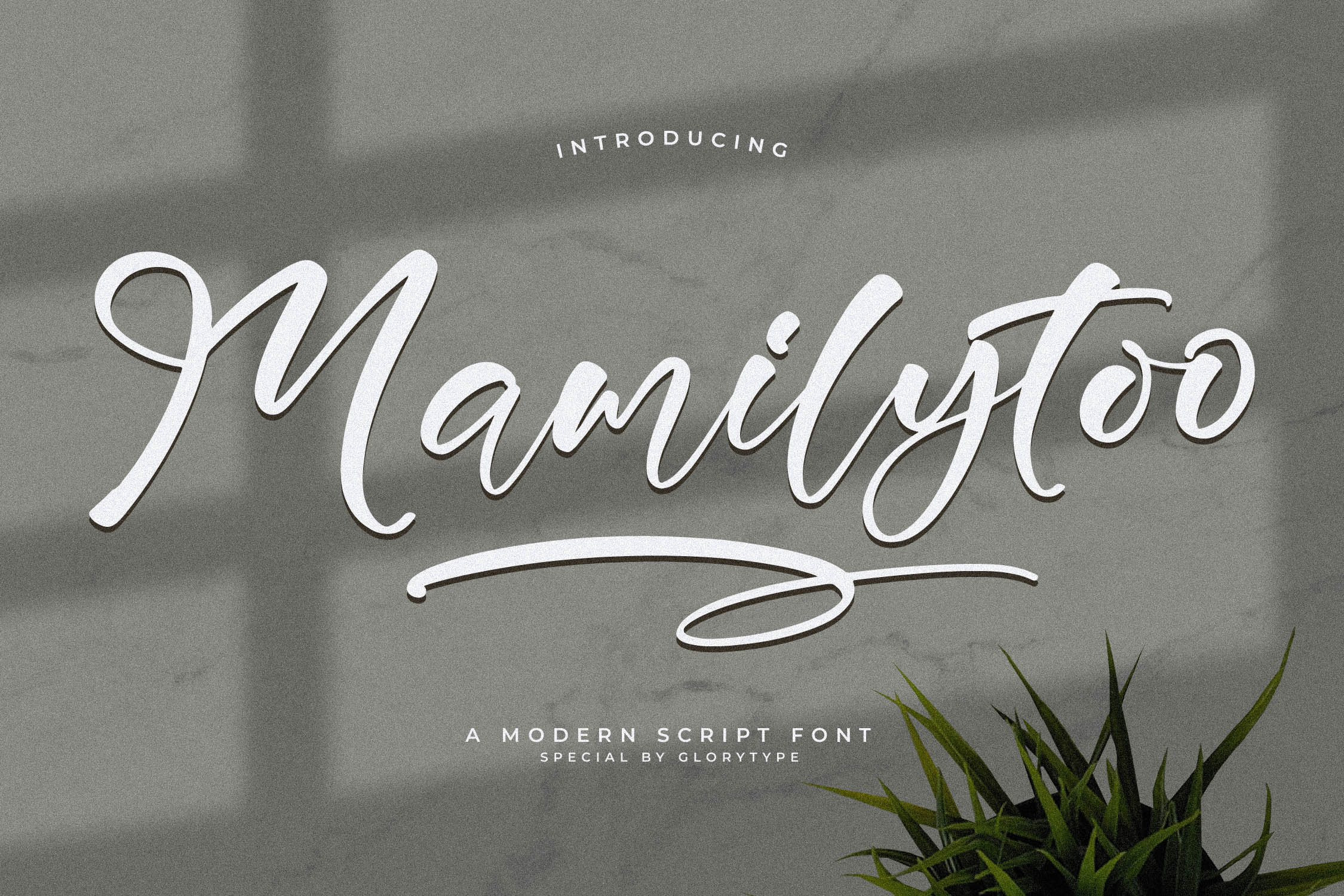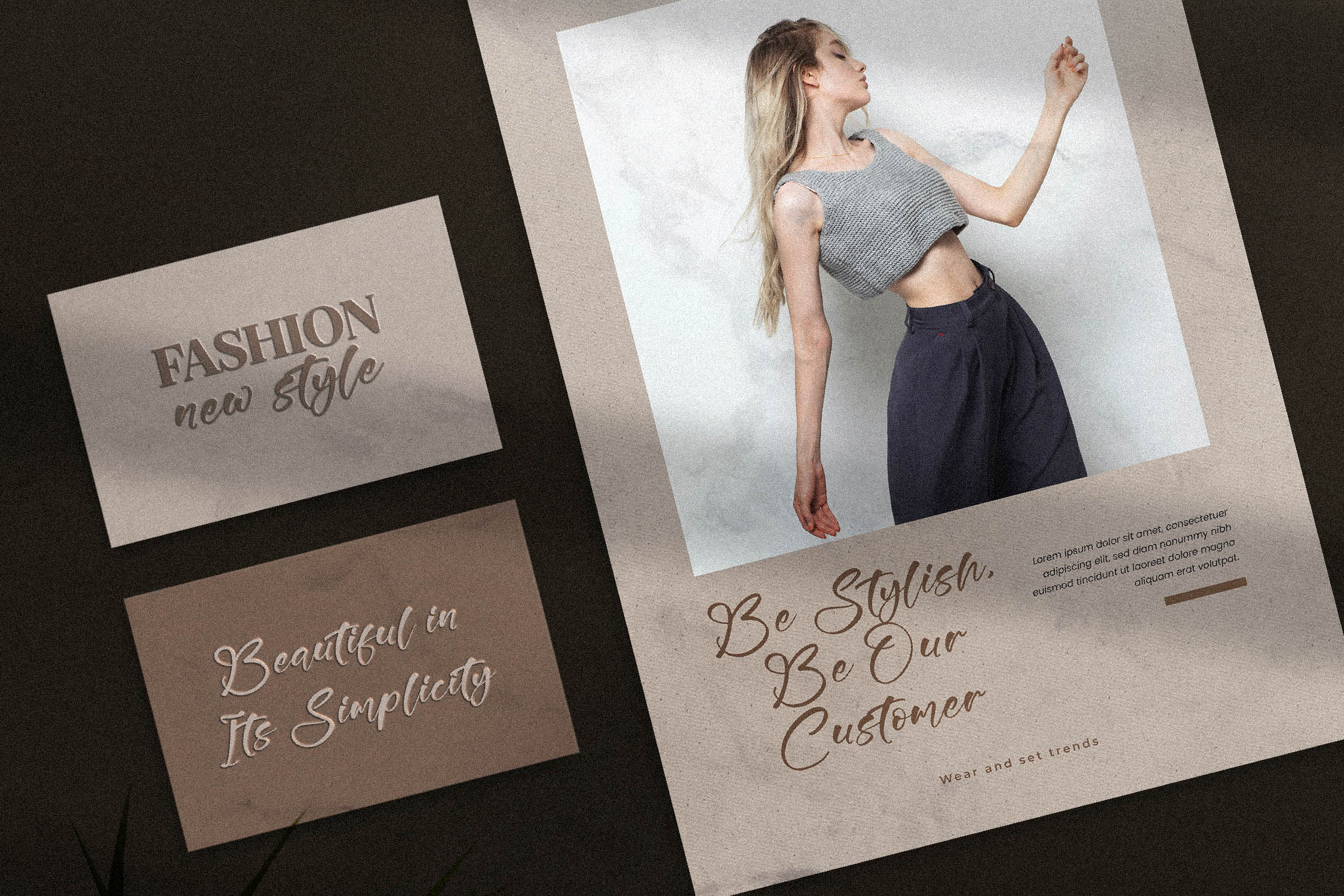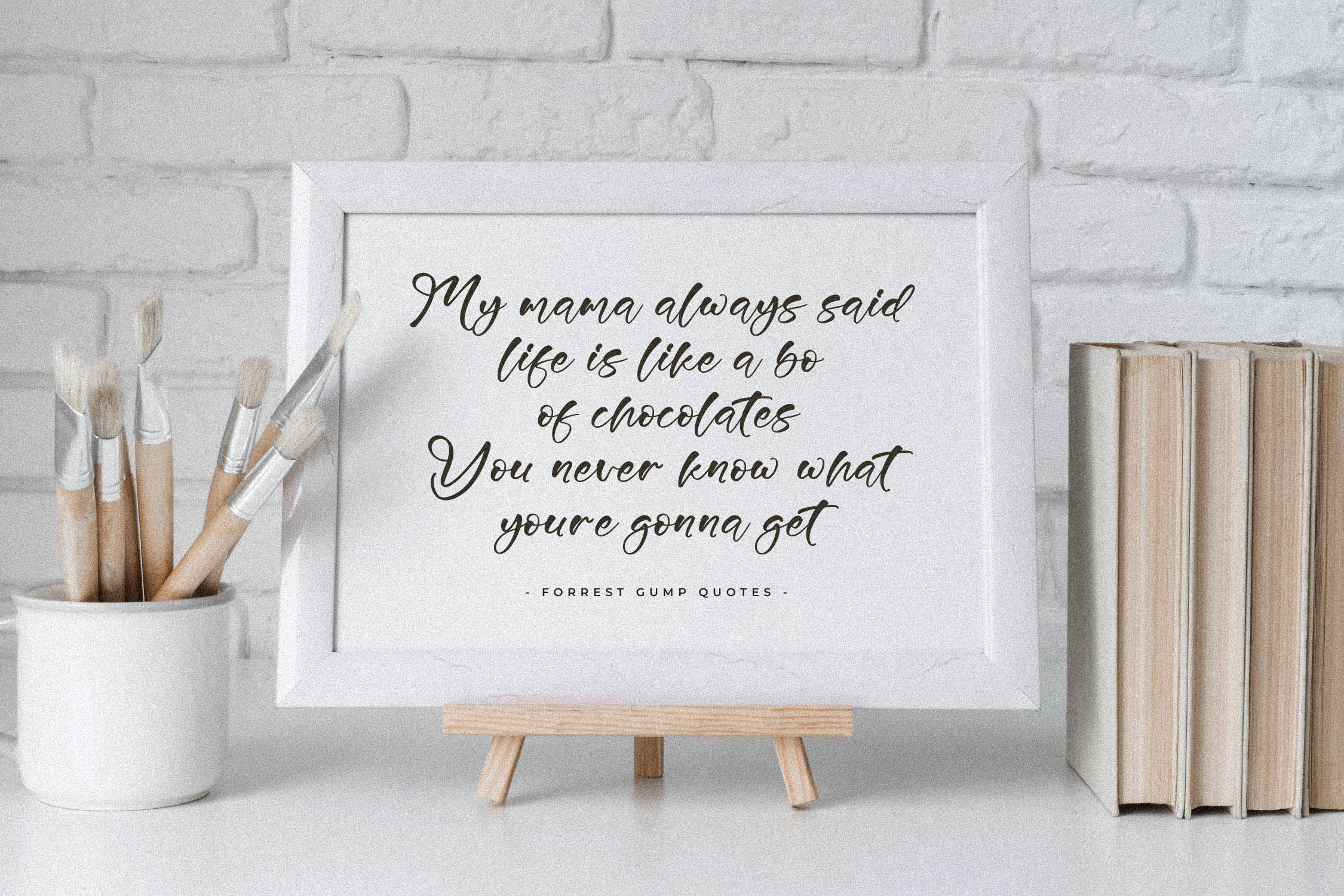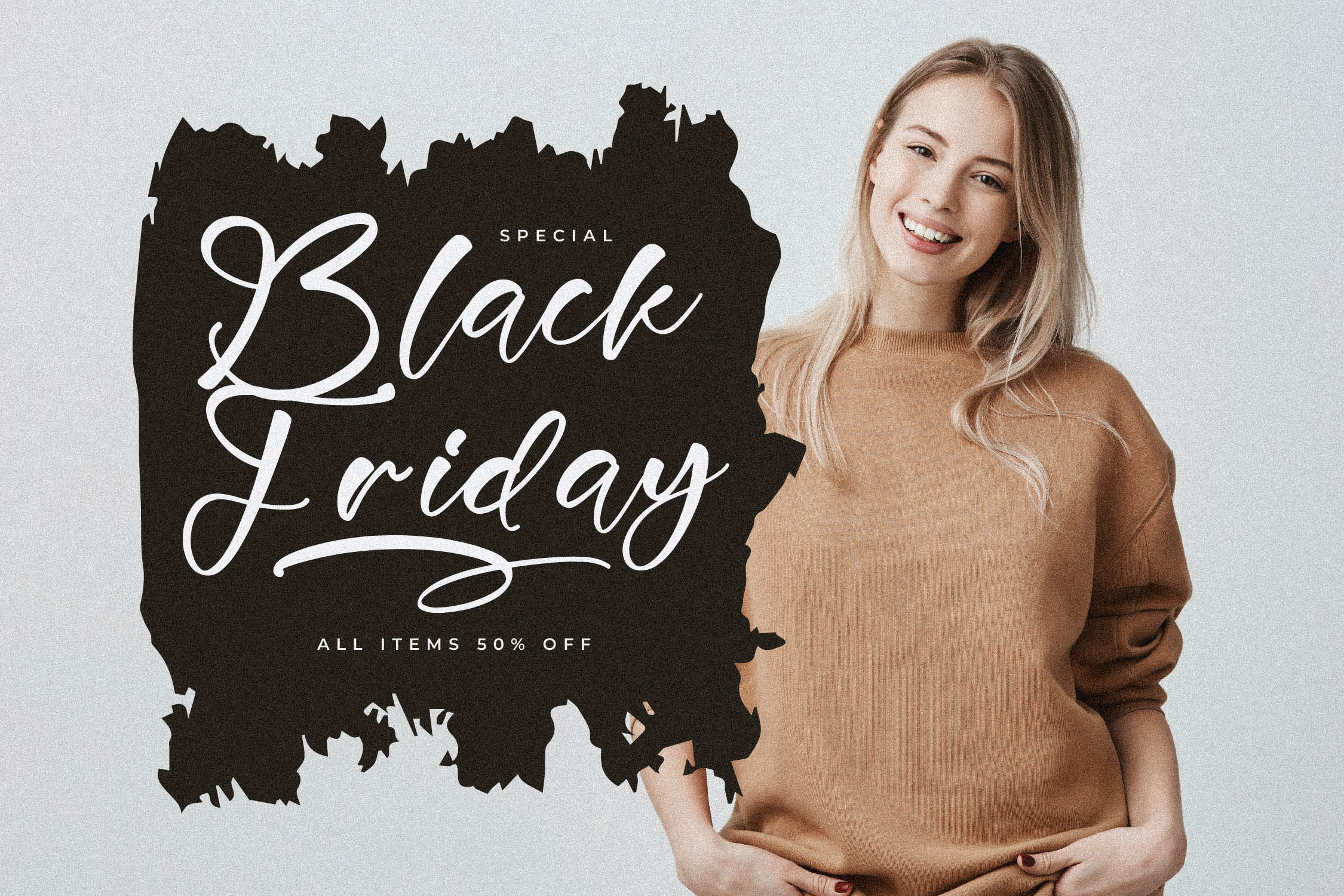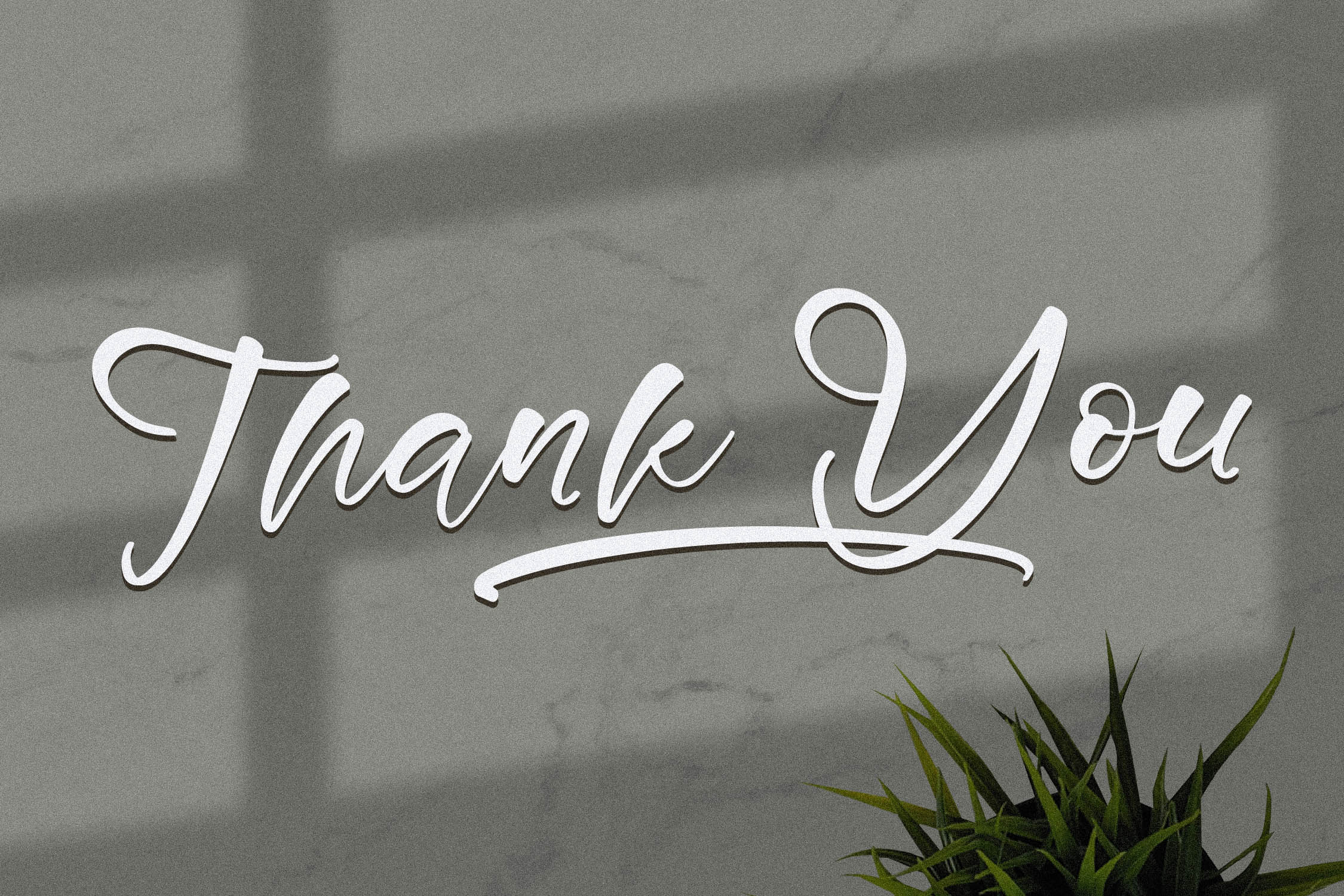
Mamilytoo Free Font
Mamilytoo Free Font is a modern and bold script font that exudes confidence and creativity. With its unique, flowing letterforms and strong, yet playful, personality, this font is the perfect choice for projects that demand a touch of sophistication and style. Whether you’re designing a stunning logo, creating eye-catching headers for your blog, or crafting custom invitations for your next event, Mamilytoo Free Font is sure to bring a touch of excitement and energy to your designs. So why wait? Download it now and let your creativity run wild!